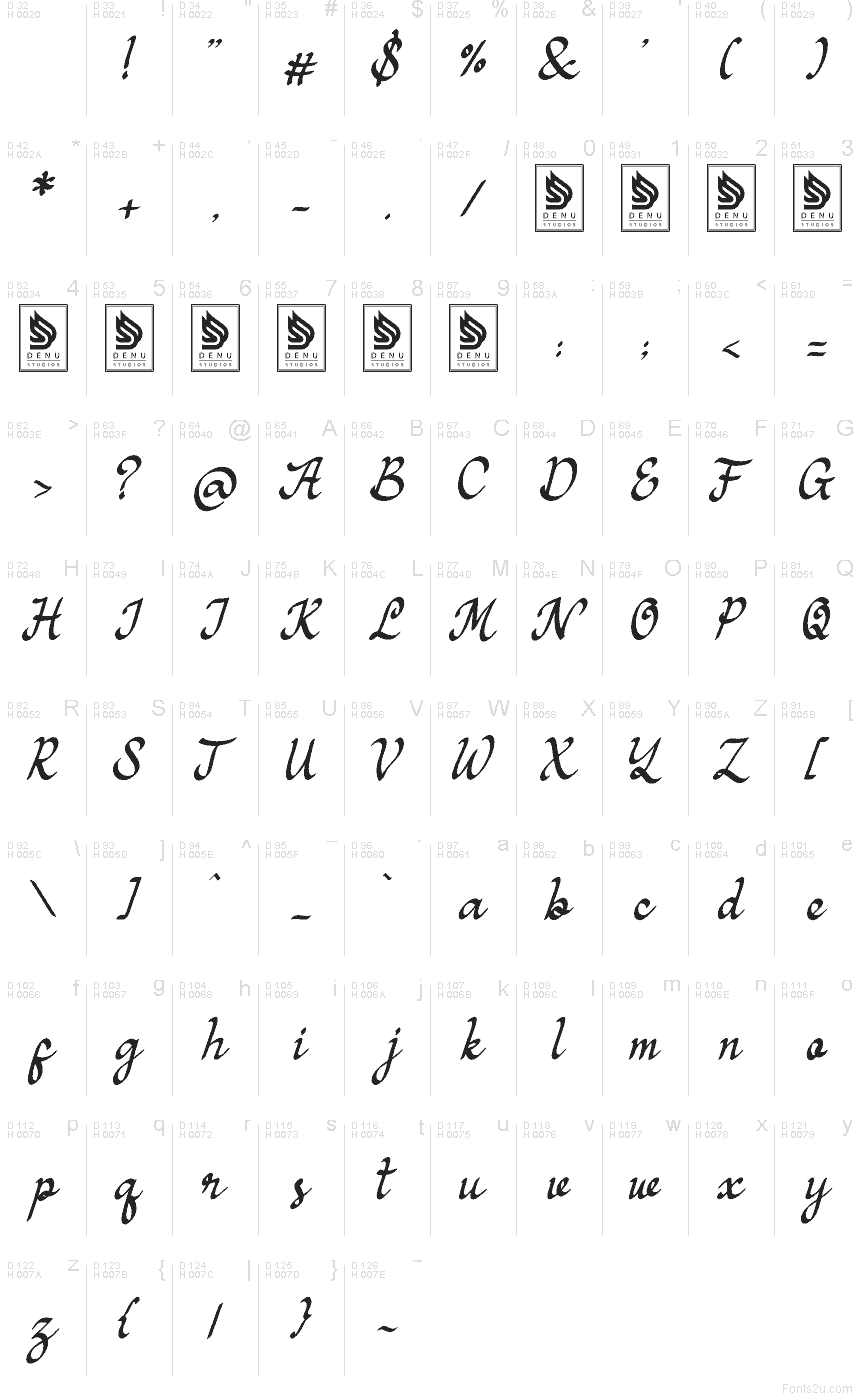
Lesstari Menandy by Denustudios is a free handwritten brush script with a breezy retro sign-painter feel. The letters lean into thick, flowing strokes, teardrop joins, and curling entry and exit moves that make the word look swept on rather than carefully plotted.
It fits branding for cafes and beauty labels, poster headlines, boutique packaging, event invitations, and social media title cards where a free font needs motion and a little flourish. The broad curves and looped details also suit short cover lines, logo sketches, and monogram-style initials, because the strokes already carry a sense of gesture on their own.